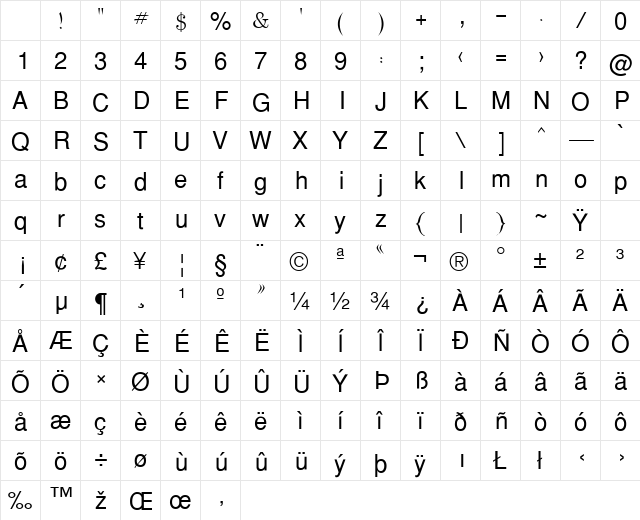
Complete WinSoft Naskh Pro Light glyph index. Displaying only characters natively supported by WinSoft Naskh Pro Light font.
WinSoft Naskh Pro is a composed and adaptable typeface that performs quietly and consistently across a wide range of design contexts. Its slender proportions lend an understated elegance to any composition.